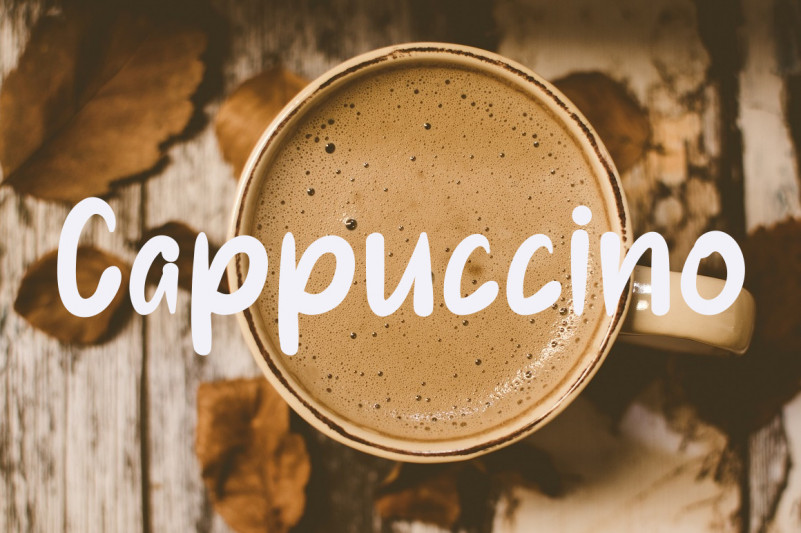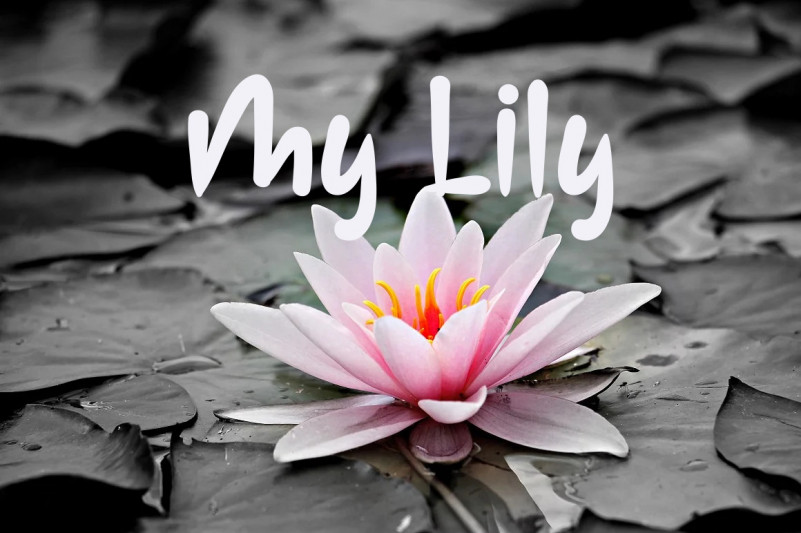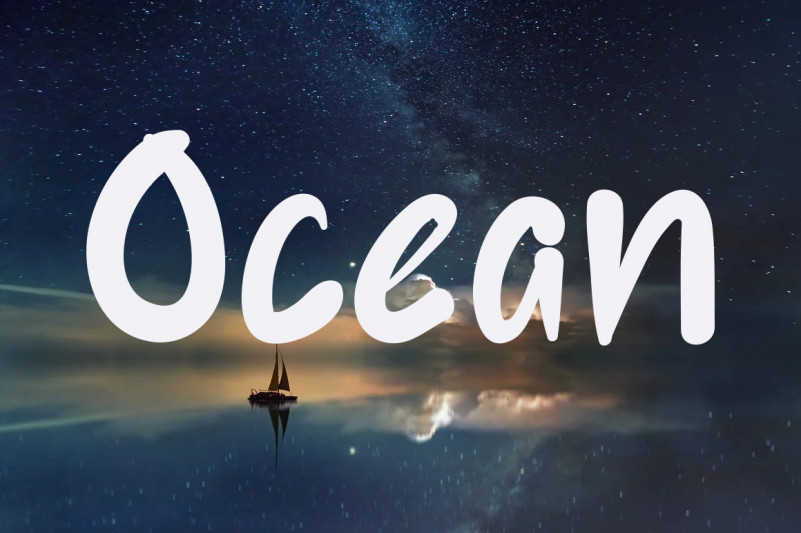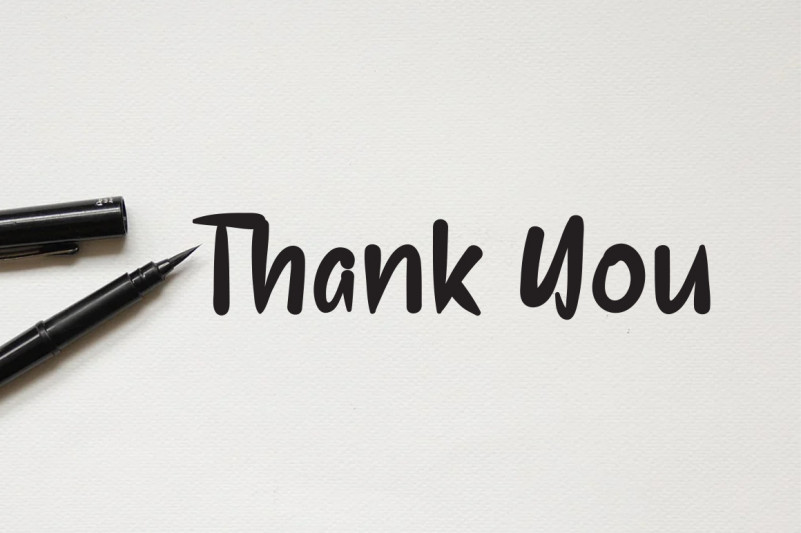
Happy Mothers Day Font
Happy Mothers Day Display Font
This is a fun and relaxed handwritten font. No matter the topic, this font will be an incredibly asset to your fonts’ library, as it has the potential to elevate any creation.